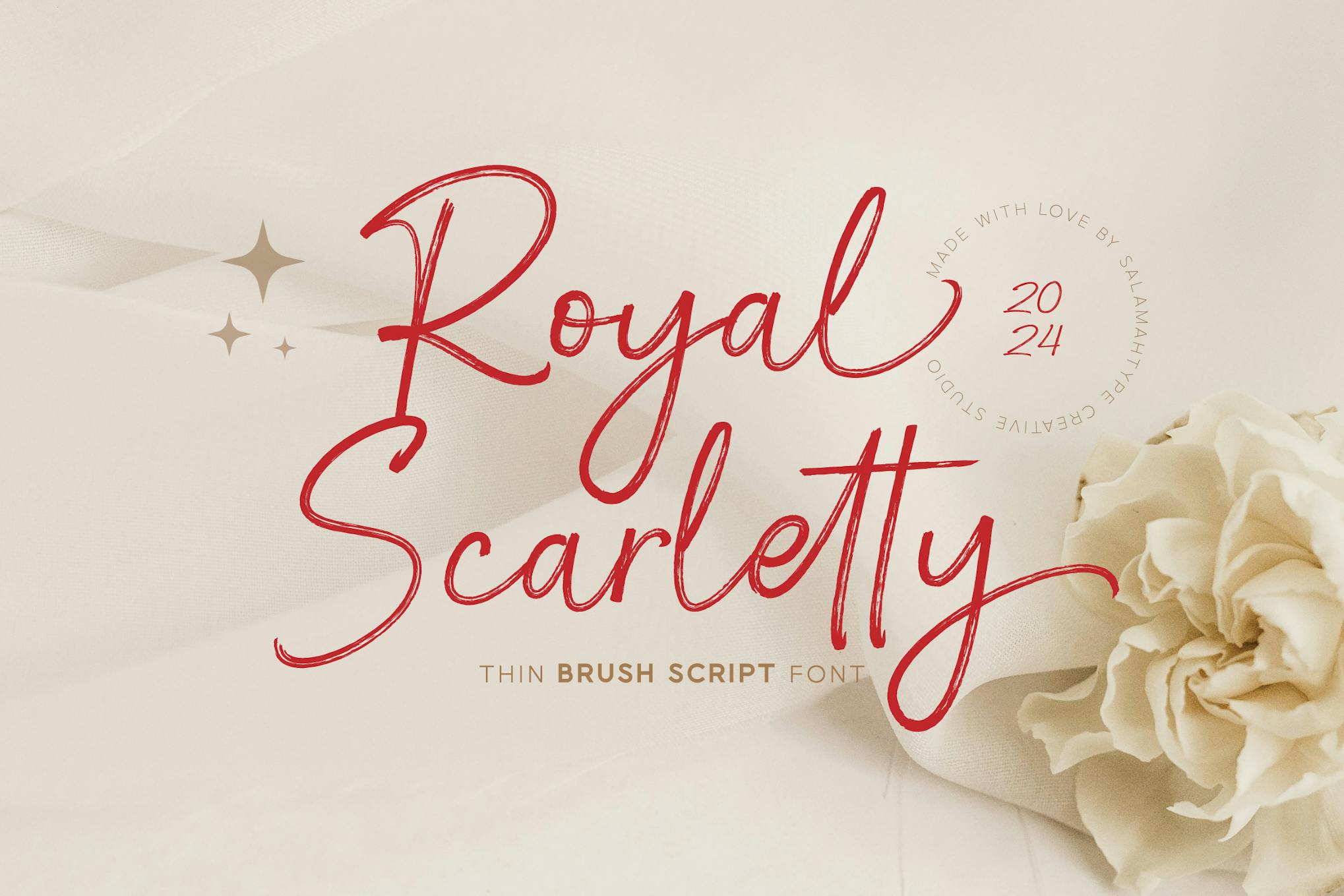
Royal Scarletty Script Font
The Royal Scarletty Script Font is perfect for wedding invitations, luxury branding, fashion magazines, romantic greeting cards, elegant logos, high-end product packaging, boutique signage, and sophisticated social media graphics.
What makes Royal Scarletty Script Font so exciting is its perfect blend of classic elegance and modern sophistication. This stunning script typeface features flowing, hand-lettered characteristics that evoke luxury and refinement. The font's graceful curves and stylish flourishes create an immediate sense of premium quality, making it ideal for brands that want to convey exclusivity and timeless beauty. Its carefully crafted letterforms demonstrate exceptional attention to detail, with each character seamlessly connecting to create smooth, readable text that maintains its elegance at any size.
The Royal Scarletty Script Font family includes multiple weights and styles to suit various design needs. The collection typically features Regular, Bold, and Light variations, along with decorative alternates and swashes that add extra flair to your designs. Many versions also include extended character sets with international language support, ensuring versatility across global markets.
The font's versatility extends beyond traditional print media, working beautifully in digital applications, web headers, and social media content. Its legibility remains consistent across different platforms and sizes, making it a reliable choice for both small accent text and large display applications. The carefully balanced spacing and kerning ensure professional results every time.
Professional designers and creative agencies worldwide trust this elegant script font for their most important projects. Whether you're creating brand identities for luxury businesses, designing wedding stationery, or developing marketing materials for high-end products, this font delivers the perfect combination of style and readability that your clients expect and deserve.